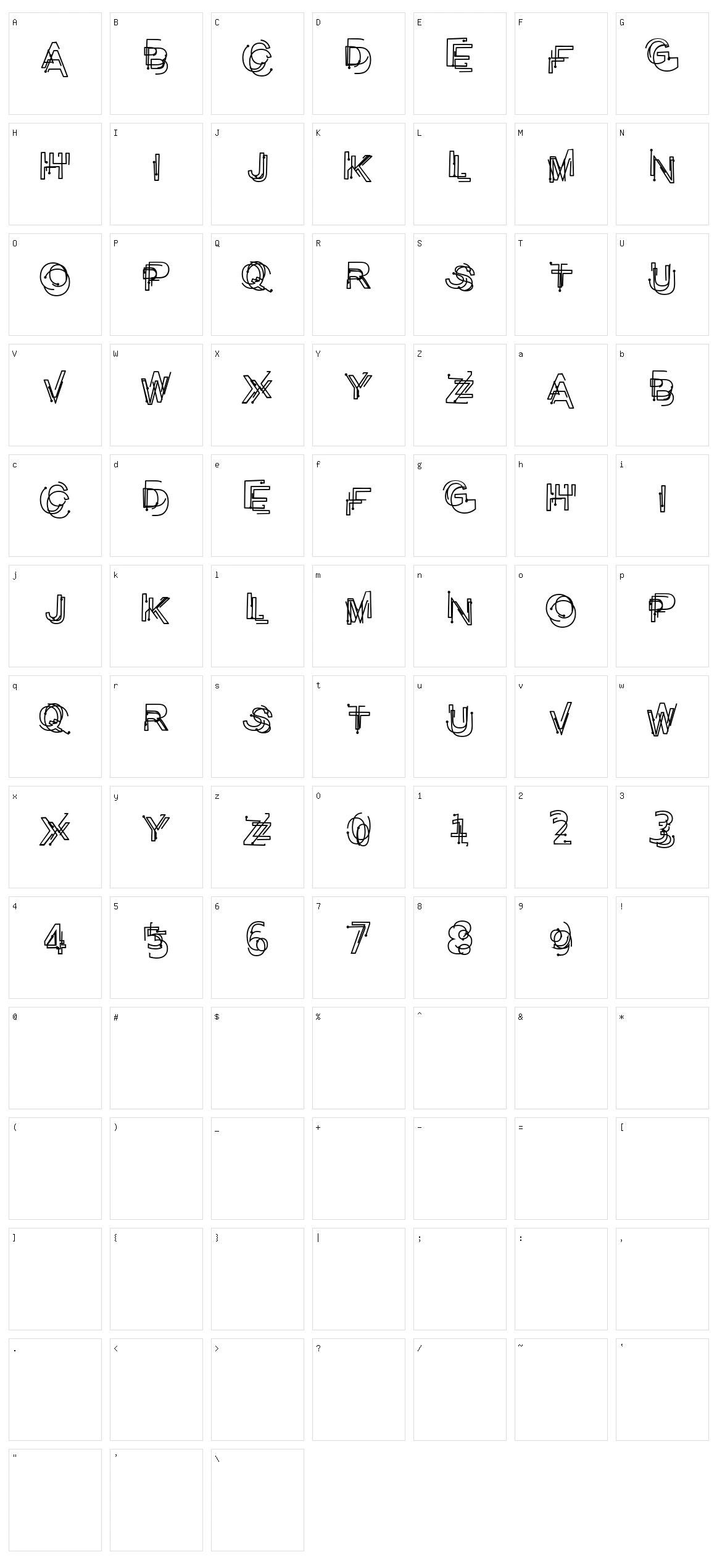
The free font Problematic Piercer is carefully designed by Vinterstille TypeFaceLab, showcasing a thoughtful balance of creativity and usability and falls under the Distorted font style. When you download the ZIP file, it contains only 45.19 KB of font files, making it lightweight and quick to download. Please review the license details below to understand permitted usage and distribution rights. If license information is not available, we recommend using this font for personal projects only or contacting the author directly for commercial usage permissions.